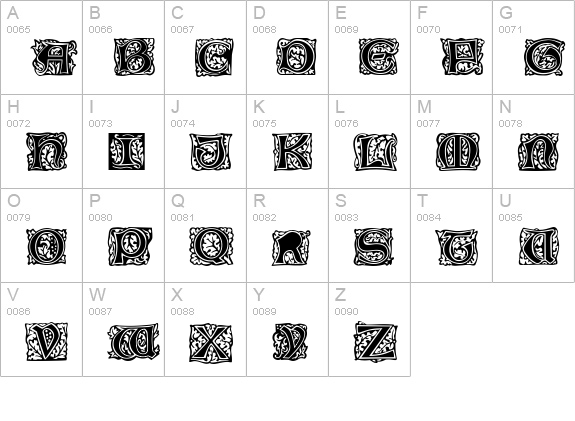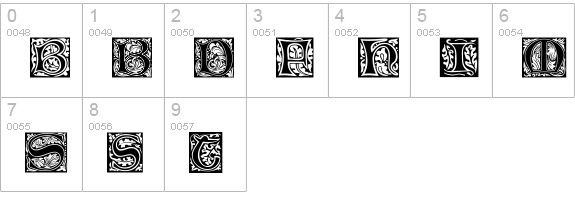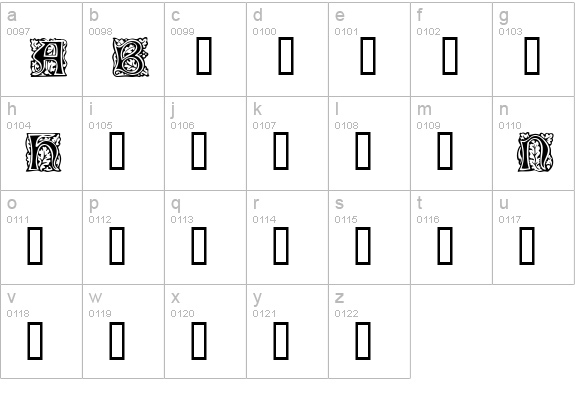
Morris Initials Font Details
Morris Initials font is a versatile and elegant typeface that exudes sophistication and charm. With its intricate design and timeless appeal, this font is perfect for adding a touch of class to any project. Whether you're working on invitations, logos, or branding materials, Morris Initials font is sure to make a statement. And the best part? This exquisite font is completely free to download at FontsMarket.com. So go ahead and elevate your designs with the beauty of Morris Initials font today!